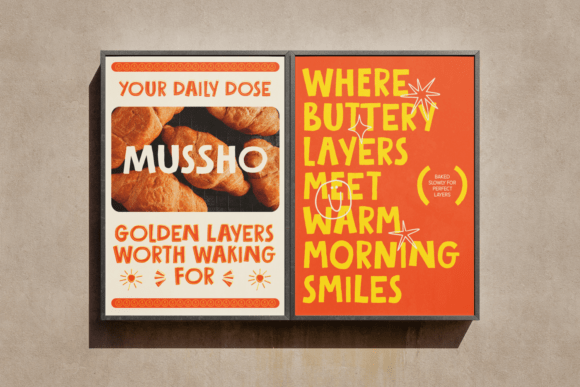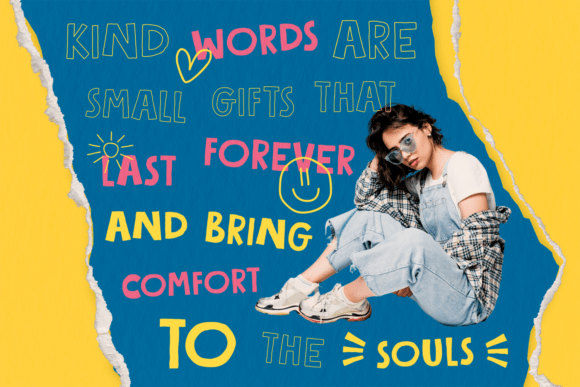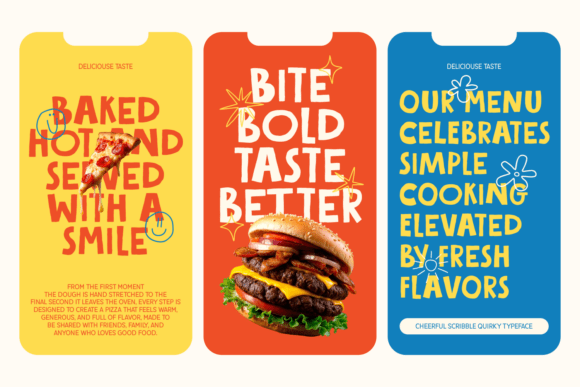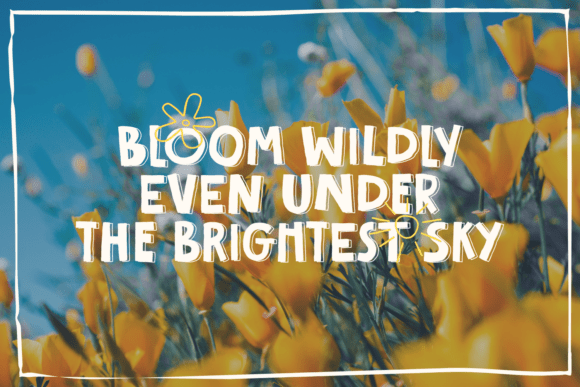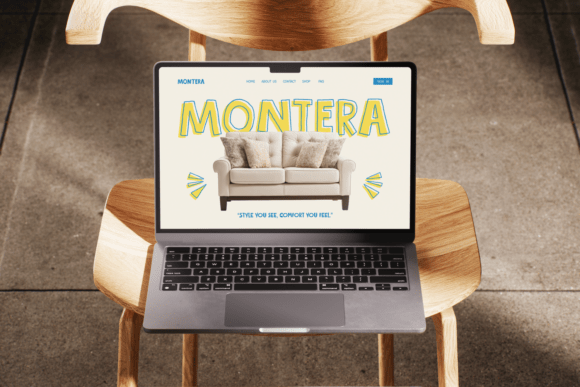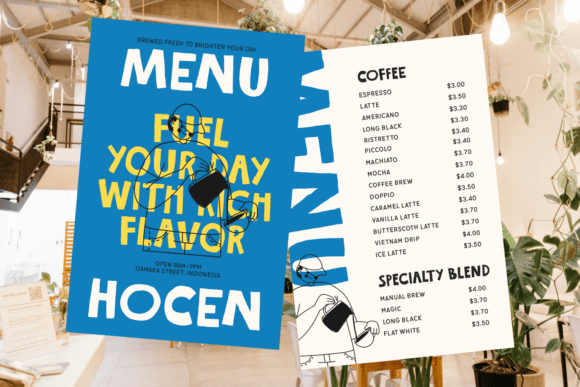
Introducing Cheerful Scribble: The Ultimate Quirky Display Font Duo
Are you tired of using the same old fonts in your designs? Look no further! I’m excited to present to you Cheerful Scribble, a joyful and quirky display font duo that’s sure to bring a smile to your work. Inspired by playful hand scribbles and cheerful doodles, Cheerful Scribble is the perfect addition to any design project that needs a dash of personality and whimsy.
The Inspiration Behind Cheerful Scribble
Cheerful Scribble is all about capturing the carefree spirit of hand-drawn typography. With its bold shapes, rounded forms, and imperfect outlines, this font duo instantly conveys a happy, friendly, and expressive vibe. Each letter feels hand-crafted, making your designs look warm, approachable, and creatively alive. Whether you’re working on a project for kids, a playful brand, or simply want to add some fun to your designs, Cheerful Scribble is the perfect choice.
The Features of Cheerful Scribble
So, what makes Cheerful Scribble so special? Here are just a few of its amazing features:
- Lowercase and Uppercase: Cheerful Scribble includes both lowercase and uppercase letters, giving you the flexibility to create a wide range of designs.
- Numerals & Punctuation: The font also includes numerals and punctuation marks, making it easy to create complete and cohesive designs.
- Accented Characters: With accented characters, you can create designs that cater to a global audience.
- Multiple Languages: Cheerful Scribble supports multiple languages, making it a great choice for international design projects.
The Benefits of Using Cheerful Scribble
So, why should you choose Cheerful Scribble for your next design project? Here are just a few benefits of using this amazing font duo:
- Adds Personality to Your Designs: Cheerful Scribble brings a unique and playful personality to your designs, setting them apart from the crowd.
- Perfect for Kids Projects: The font’s playful and whimsical nature makes it ideal for kids’ projects, such as children’s books, educational materials, and more.
- Great for Playful Branding: Cheerful Scribble is also perfect for playful branding, adding a fun and friendly touch to your brand’s identity.
- Easy to Use: The font duo is easy to use and pairs perfectly with a wide range of design software.
How to Use Cheerful Scribble in Your Designs
Using Cheerful Scribble in your designs is easy! Here are a few tips to get you started:
- Pair with Bold Colors: Cheerful Scribble looks amazing with bold, bright colors. Try pairing it with a bold color scheme to create a fun and playful design.
- Experiment with Contrasts: The font duo’s solid bold style and lively outlined companion make it perfect for creating fun contrasts and eye-catching typography.
- Add Texture and Patterns: Add texture and patterns to your designs to give them a more playful and whimsical feel.
Ideas for Using Cheerful Scribble
So, what can you create with Cheerful Scribble? Here are a few ideas to get you started:
- Kids’ Projects: Create children’s books, educational materials, and more with Cheerful Scribble.
- Playful Branding: Use Cheerful Scribble to add a fun and friendly touch to your brand’s identity.
- Posters and Flyers: Create eye-catching posters and flyers with Cheerful Scribble.
- Social Media Content: Use Cheerful Scribble to create fun and engaging social media content.
- Stickers and Merchandise: Create stickers, t-shirts, and other merchandise with Cheerful Scribble.
| Author | shineink.designlab |
In conclusion, Cheerful Scribble is the ultimate quirky display font duo for designers and crafters. With its bold shapes, rounded forms, and imperfect outlines, this font instantly brings a happy, friendly, and expressive vibe to any design. Whether you’re working on a kids’ project, playful branding, or simply want to add some fun to your designs, Cheerful Scribble is the perfect choice. So why wait? Download Cheerful Scribble today and start adding a dash of personality to your designs!